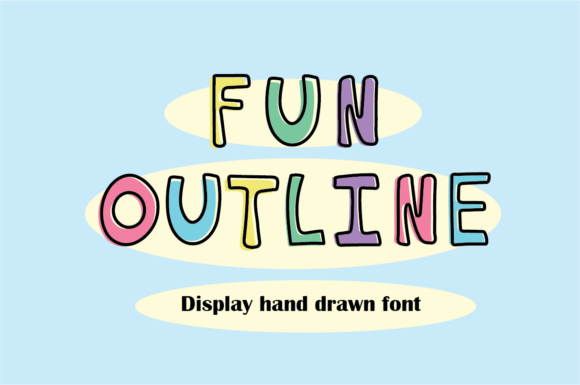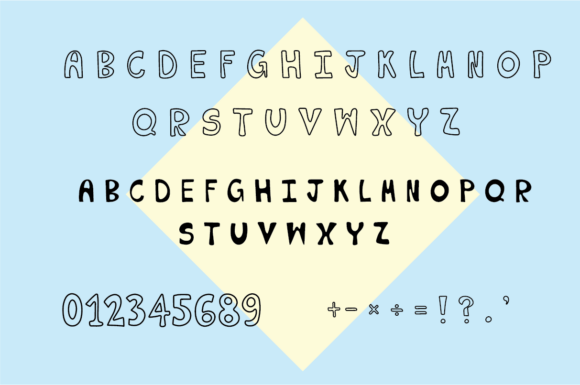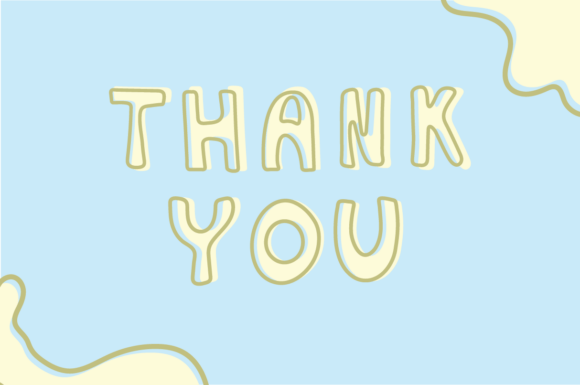
Fun Outline Font
About the Fun Outline Font
Step up your design game with Fun Outline Font, a font that exudes confidence and style. Fun Outline is a playful hand-drawn font full of color and cheer. Each letter has a bold outline with a whimsical fill, ideal for kids’ projects, party invites, and educational materials. It’s quirky, fun, and designed to pop!
This font shines in applications requiring high visual impact, such as logos for children’s brands, eye-catching headlines, posters for events, and playful packaging designs. Its bold outlines ensure readability even at smaller sizes, making it suitable for short bursts of text on product labels or social media graphics. However, its whimsical nature makes it less suitable for body text or lengthy content; readability suffers in extended use.
Fun Outline’s playful energy pairs well with clean sans-serif fonts like Open Sans for a balanced contrast, or a more geometric sans-serif for a modern feel. For a softer approach, consider pairing it with a simple serif like Merriweather for headings and body text. Avoid pairing it with other highly decorative fonts, as this could lead to visual clutter.
The font’s core personality is undeniably playful and bold, radiating a cheerful and friendly energy. It’s ideal for projects targeting younger audiences or brands wanting to project a lighthearted and approachable image.
Fun Outline Font Example